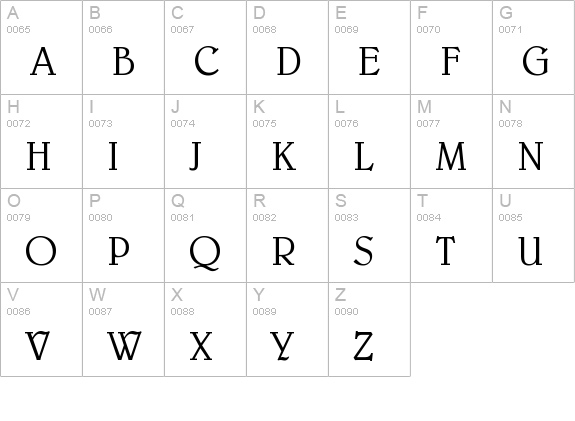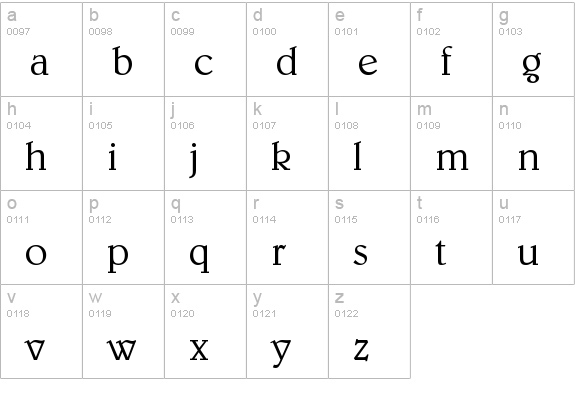
Barrister Light SSi Light is a refined, elegant variant in the Barrister typeface family \xE2\x80\x94 well suited to elegant body text, refined sub-headings, and luxury branding.
Barrister Light SSi Light font is a modern and elegant typeface that exudes sophistication and professionalism. With its sleek lines and clean design, this font is perfect for adding a touch of refinement to any project. The light weight of the font gives it a delicate and airy appearance, making it ideal for titles, headings, and other prominent text elements. What makes Barrister Light SSi Light font even more appealing is that it is available for free download at FontsMarket.com. This means that you can easily access this high-quality font without any cost, making it a valuable addition to your font collection. Whether you are working on a project that requires a touch of class or simply want to enhance your design with a stylish font, Barrister Light SSi Light font is sure to impress. Download it today and elevate your typography game!